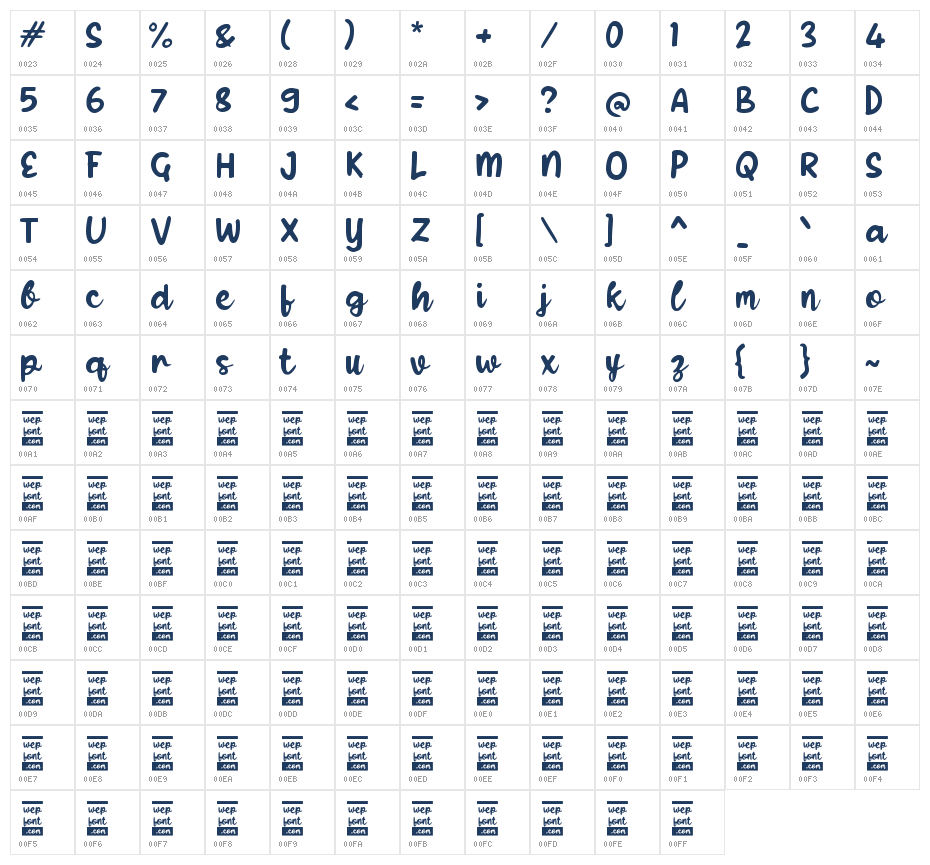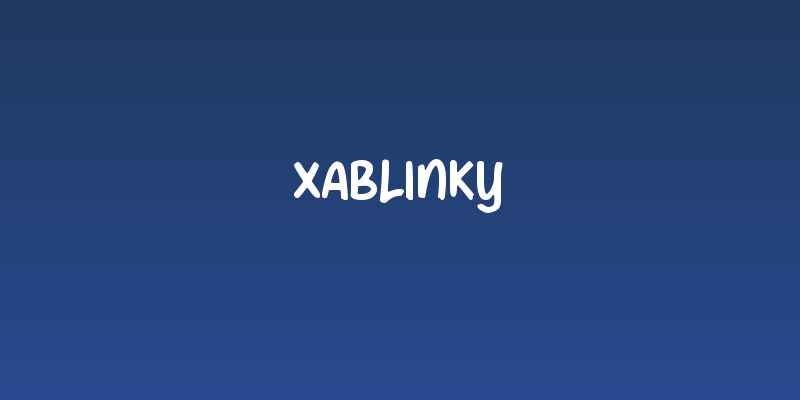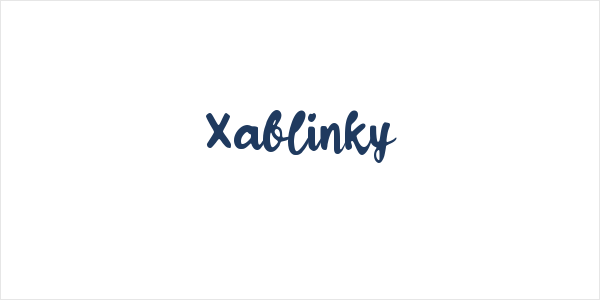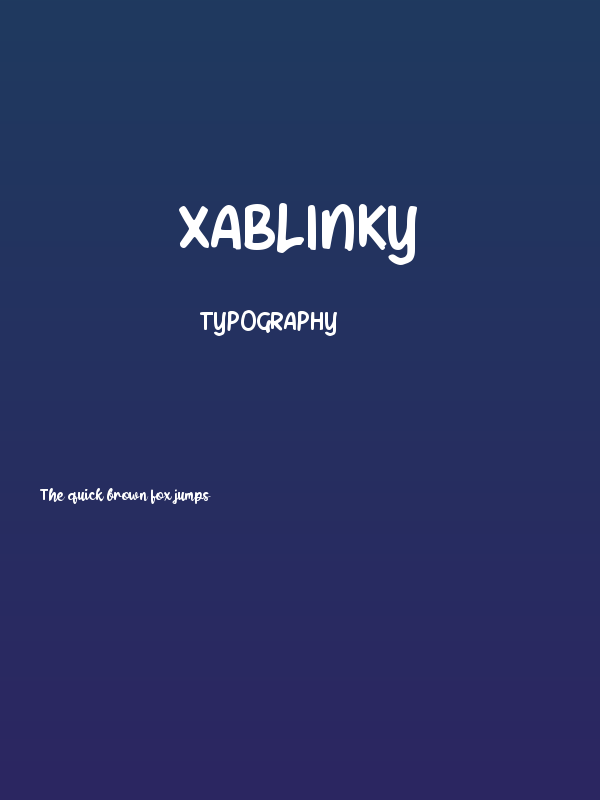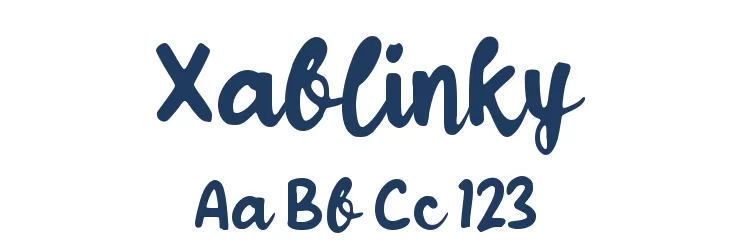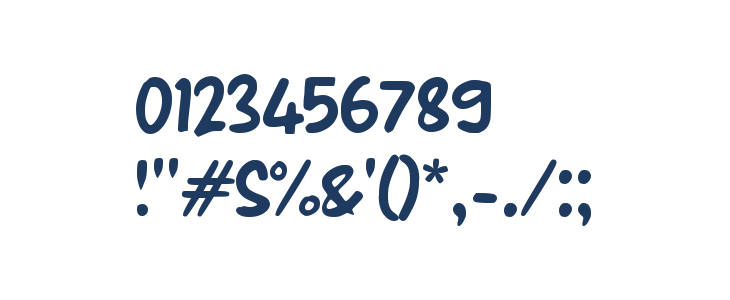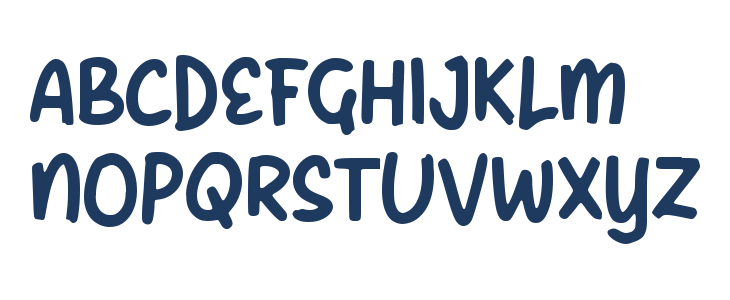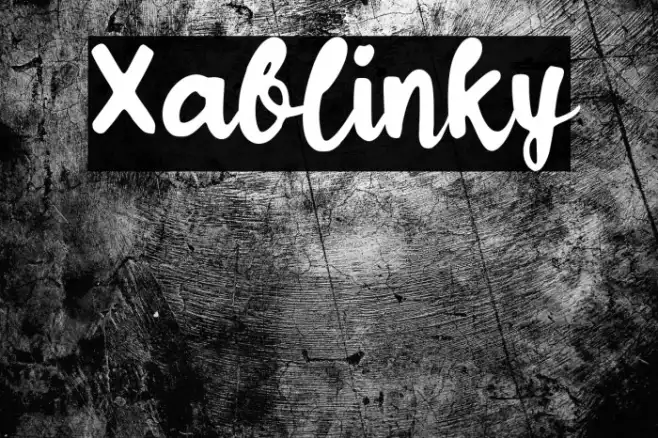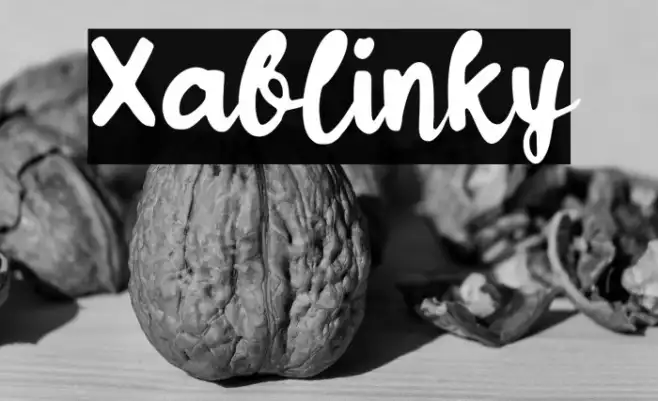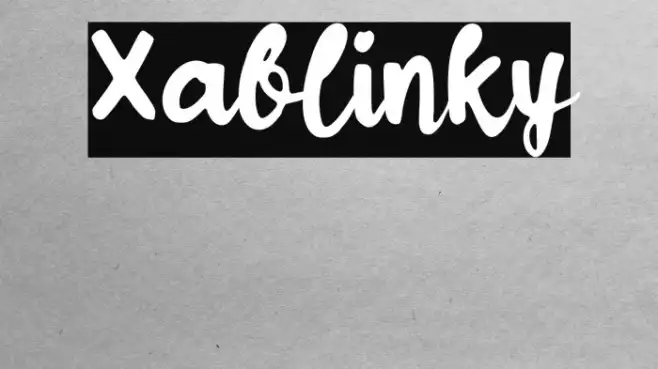
Xablinky Font
Xablinky Description
A playful, rounded, handwritten style font with a casual and friendly appearance.
| Overall Style | Casual, Friendly, Handwritten |